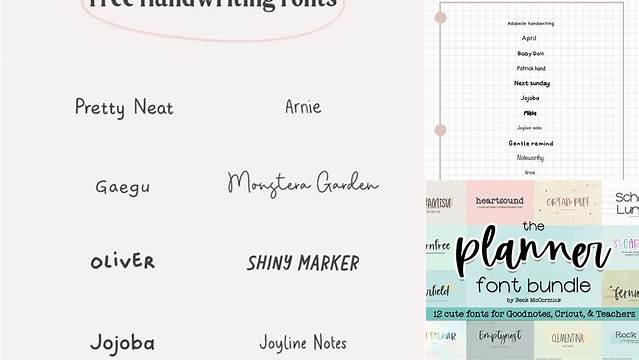
Best Handwriting Fonts For GoodNotes
Choosing the right font in GoodNotes can really elevate your note-taking experience, especially if you're aiming for that personal, handwritten feel. Let’s dive into the best handwriting fonts for GoodNotes, making your digital notes look both stylish and authentic. Guys, finding the perfect font is like finding the perfect pen – it just makes everything better! We'll explore a variety of options, from free fonts to premium choices, ensuring there's something for everyone.
1. Why Use Handwriting Fonts in GoodNotes?
Why even bother with handwriting fonts, you ask? Well, using handwriting fonts in GoodNotes brings a unique touch to your notes. It makes them feel more personal and less sterile compared to standard digital fonts. Imagine your notes looking like you've actually handwritten them – it can make studying or reviewing so much more engaging. Plus, it's a fantastic way to express your style! Think of it as adding a bit of your personality to your digital workspace. By choosing fonts that mimic natural handwriting, you can bridge the gap between traditional pen-and-paper notes and the convenience of digital note-taking. Whether you're a student, professional, or creative, handwriting fonts can add a special flair to your GoodNotes documents.
2. Free Handwriting Fonts for GoodNotes
Budget-conscious note-takers, this one's for you! There are tons of amazing free handwriting fonts out there that work perfectly with GoodNotes. Let's talk about some stellar options. Websites like DaFont and Font Squirrel are goldmines for free fonts. You can find everything from casual, scribbled styles to elegant, cursive-like fonts. For example, fonts like 'Permanent Marker' or ' школьные дни ' can give your notes a fun, informal vibe. And the best part? They won’t cost you a dime! Just download the font, import it into GoodNotes, and you're ready to go. Using free handwriting fonts allows you to experiment with different styles without breaking the bank. It’s a fantastic way to personalize your notes and find the perfect look for your needs. So, dive in and explore the world of free fonts – you might just find your new favorite!
3. Premium Handwriting Fonts for GoodNotes
If you're looking to splurge a little, premium handwriting fonts can offer even more polish and sophistication. These fonts often have more detailed designs, cleaner lines, and extra features like ligatures (where letters connect smoothly) and multiple weights (bold, italics, etc.). Sites like Creative Market and MyFonts are great places to find these gems. While they come with a price tag, the investment can be worth it if you're serious about the aesthetics of your notes. Plus, supporting font designers helps them create even more amazing fonts! Think of premium handwriting fonts as the luxury upgrade for your GoodNotes setup. They can add a professional touch to your notes, making them stand out and reflecting your commitment to quality. So, if you're ready to take your note-taking to the next level, explore the world of premium fonts.
4. Cursive Fonts for GoodNotes
Cursive fonts bring an elegant and flowing style to your notes. They're perfect for adding a touch of sophistication and are great for headings, titles, or even entire paragraphs if you're feeling fancy. Imagine your study notes looking like they've been penned by a calligrapher – it's a beautiful way to make your notes stand out. When choosing cursive fonts for GoodNotes, make sure they're still readable. Some super swirly fonts can be hard to decipher, so opt for styles that balance aesthetics with clarity. Fonts like 'Brush Script MT' or 'Mistral' can add that cursive flair without sacrificing readability. Using cursive fonts in your GoodNotes setup can elevate the overall look and feel, making your digital notes a true pleasure to work with.
5. Script Fonts for GoodNotes
Script fonts are similar to cursive but often have a more casual, handwritten feel. They're perfect for adding a personal touch to your notes without being overly formal. Think of script fonts as the friendly, approachable cousins of cursive fonts. They're great for adding emphasis, creating headings, or just making your notes look a bit more lively. When selecting script fonts for GoodNotes, consider the overall tone you want to convey. Some script fonts are playful and whimsical, while others are more refined and elegant. Fonts like 'Segoe Script' or 'Bradley Hand ITC' offer a nice balance of readability and personality. Using script fonts can make your notes feel more engaging and less like a textbook, helping you stay motivated and focused.
6. Sans Serif Handwriting Fonts for GoodNotes
Who says handwriting fonts have to be all swirly and connected? Sans serif handwriting fonts offer a modern twist on the classic handwritten look. They’re clean, minimalist, and super readable, making them a great choice for body text or any situation where clarity is key. Imagine a font that looks handwritten but still has the crispness of a sans serif – it's the best of both worlds! When looking for sans serif handwriting fonts for GoodNotes, consider styles that have a natural, slightly irregular feel. This will give them that authentic handwritten vibe without sacrificing legibility. Fonts like 'Handlee' or even a slightly tweaked 'Open Sans' can work wonders. Using sans serif handwriting fonts can bring a fresh, contemporary look to your notes, perfect for those who prefer a more streamlined aesthetic.
7. Serif Handwriting Fonts for GoodNotes
Serif handwriting fonts, on the other hand, bring a touch of tradition and elegance to the handwritten style. The little “feet” (serifs) on the letters can make the font feel more polished and sophisticated, while still retaining the personal touch of handwriting. Think of serif handwriting fonts as the more formal cousins of sans serif handwriting fonts – they’re perfect for headings, titles, or any situation where you want to add a touch of class. When choosing serif handwriting fonts for GoodNotes, look for styles that are readable and don't have too many overly ornate details. Fonts like 'Amatic SC' (though technically a display font, it can work in some contexts) or 'Rockwell Slab' with a slight slant can give you that serif handwritten feel. Using serif handwriting fonts can bring a classic, refined look to your notes, perfect for those who appreciate a more timeless aesthetic.
8. Bold Handwriting Fonts for GoodNotes
Sometimes, you need a font that really stands out. Bold handwriting fonts are perfect for headings, subheadings, or any text you want to emphasize. They have a strong, impactful presence that grabs the reader's attention. Imagine using a bold handwriting font for your chapter titles – it's a surefire way to make them pop! When choosing bold handwriting fonts for GoodNotes, make sure they're still readable and don't become too heavy or cluttered. Fonts like a bolder version of 'Permanent Marker' or a robust script font can work well. Using bold handwriting fonts strategically can help you organize your notes, highlight key information, and create a visually appealing layout. They're a must-have in your font arsenal for GoodNotes.
9. Light Handwriting Fonts for GoodNotes
On the flip side, light handwriting fonts offer a delicate and subtle touch. They’re great for body text or any situation where you want a softer, more understated look. Think of light handwriting fonts as the whisperers of the font world – they add personality without shouting. When selecting light handwriting fonts for GoodNotes, make sure they're still legible and don't fade into the background. Fonts with thin, elegant strokes can create a beautiful effect. Styles like a lighter weight version of a script font or a delicate sans serif handwriting font can work wonders. Using light handwriting fonts can bring an airy, graceful feel to your notes, perfect for creating a calming and aesthetically pleasing digital workspace.